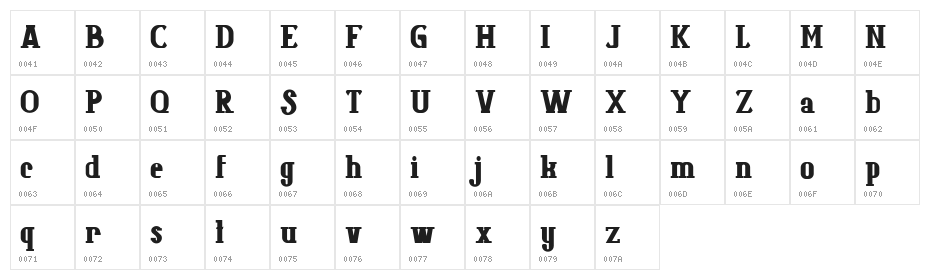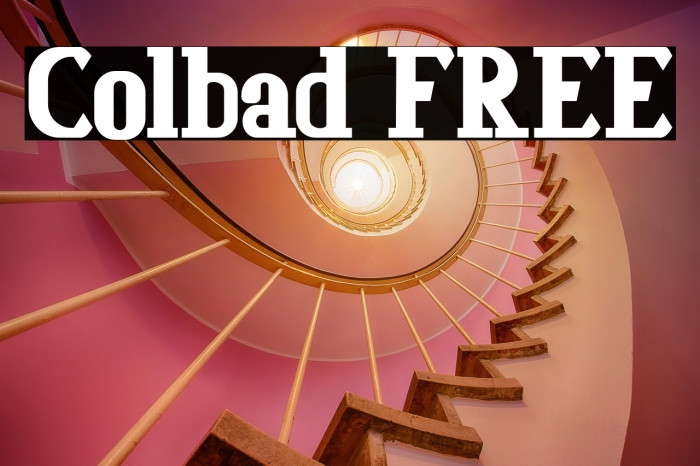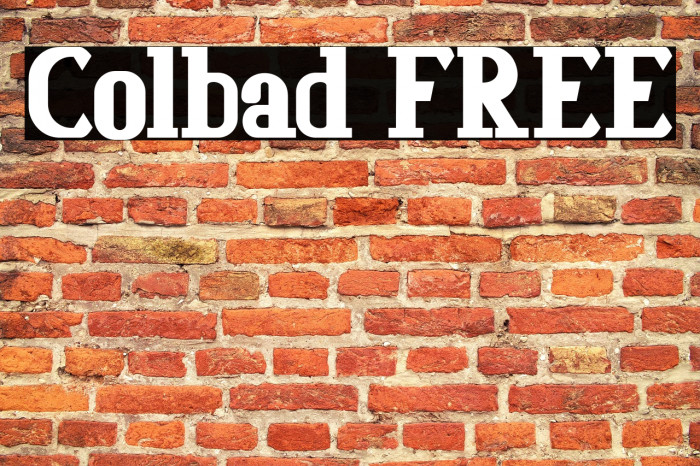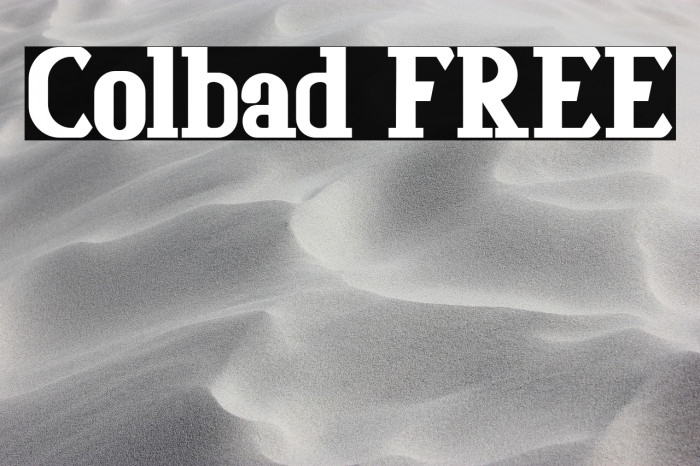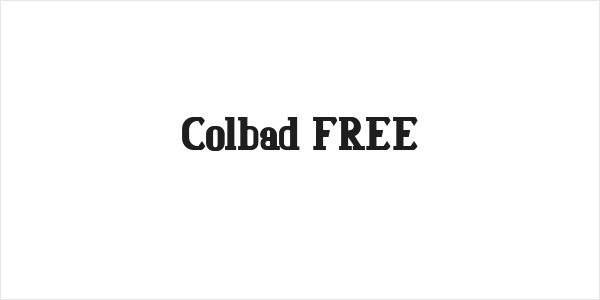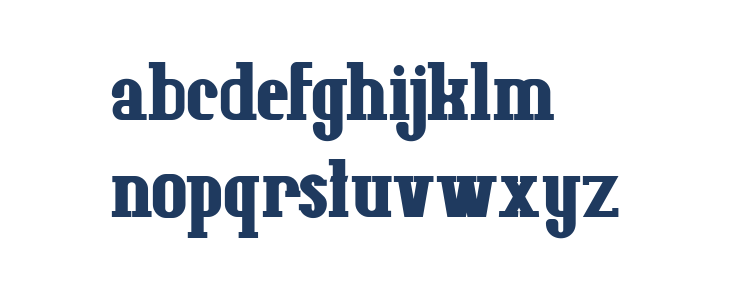
Colbad FREE Font
Colbad FREE Description
This font exhibits a bold and robust slab serif style, characterized by thick, block-like serifs that give it a strong and commanding presence. The uppercase letters are uniform in height, with a slight curvature on certain characters like 'C' and 'G', adding a touch of elegance. The lowercase letters maintain a consistent weight, with distinctive features such as the curved tail on the 'g' and the unique structure of the 'a'. The numbers are equally bold, ensuring readability and impact. Special characters are designed to match the overall aesthetic, making them suitable for various uses.
| Overall Style | Classic |